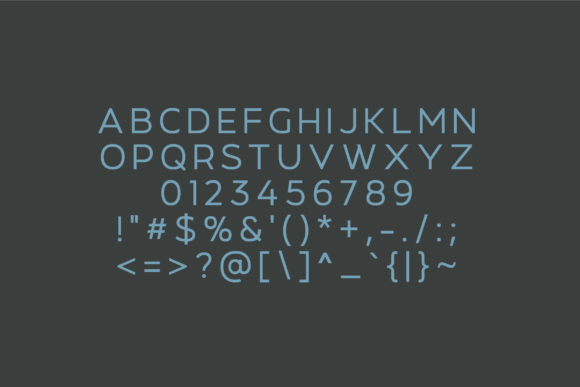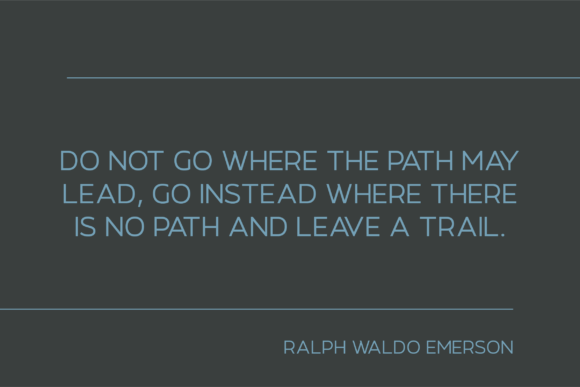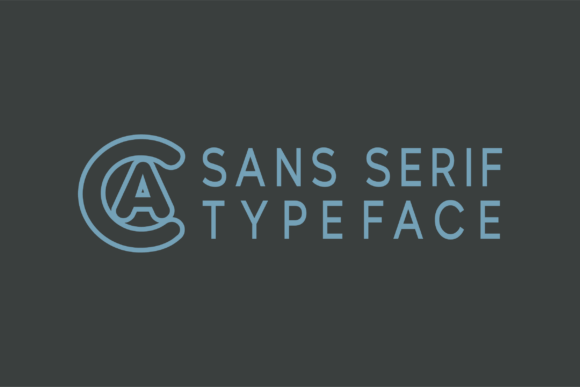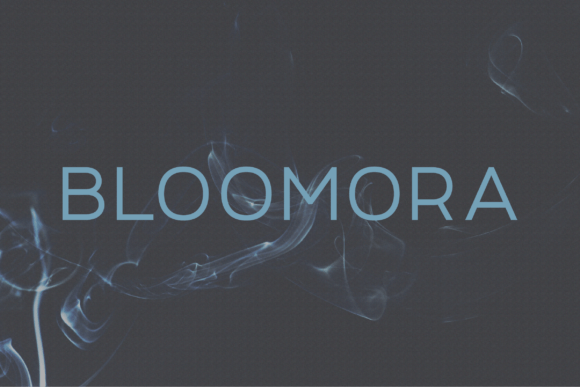
Introducing Bloomora: The Modern, Classy Sans Serif Typeface You Need
Have you ever been in the middle of a design project, and suddenly, you’re stuck on finding the perfect font? I certainly have. It was during a wedding invitation project that I realized the importance of a versatile and elegant typeface. My client wanted something modern, yet classy; something that would make their special day even more memorable. That’s when I discovered Bloomora, a stunning sans serif typeface that has since become a staple in my design toolkit.
A Personal Review of Bloomora
What I Love About Bloomora ✨
- ✅ Extremely versatile: perfect for logos, weddings, invitations, quotes, advertisements, print, magazines, and more!
- ✅ Modern and classy design: adds a touch of sophistication to any project
- ✅ Comprehensive character set: includes upper characters, numbers 0-9, and a range of punctuation and symbols
- ✅ Easy to read: clear and legible, even at smaller font sizes
- ⚠️ Limited stylistic alternates: while Bloomora has a beautiful default style, some users may find the lack of extensive alternates a bit limiting
- ⚠️ Not ideal for body text: while readable, Bloomora is better suited for headings and titles due to its design and intended use
The Story Behind Bloomora
Bloomora was designed with the intention of creating a modern, classy sans serif typeface that would cater to a wide range of design needs. The designer aimed to create a font that would be both elegant and versatile, making it perfect for various applications, from logos and invitations to magazines and advertisements.
Q: What is Bloomora’s intended use?
A: Bloomora is designed to be a versatile font, suitable for a wide range of applications, including logos, weddings, invitations, quotes, advertisements, print, magazines, and more!
Q: Does Bloomora include OpenType features?
A: Yes, Bloomora includes OpenType features, such as ligatures and stylistic alternates, which can be accessed in compatible software, like Adobe Photoshop and Illustrator.
Q: Is Bloomora suitable for body text?
A: While Bloomora is readable, it’s better suited for headings and titles due to its design and intended use. For body text, consider using a font specifically designed for readability.